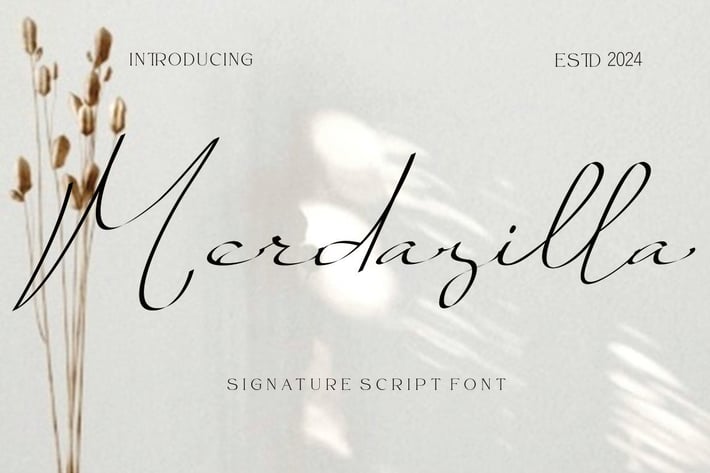
Merdazilla - Signature Script Font
Introducing our new product Merdazilla - Signature Script Font Modern Font
Merdazilla - Signature Script Font - Modern Font is a bold and authentic display font. The font is suitable for any branding project like logo, t-shirt printing, esport, and many more. outstanding in a wide range of contexts.
lowercase
* ligature